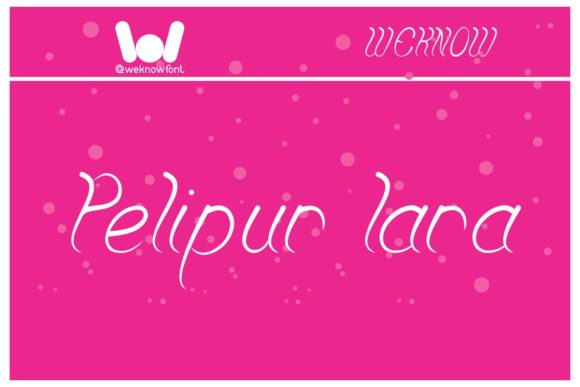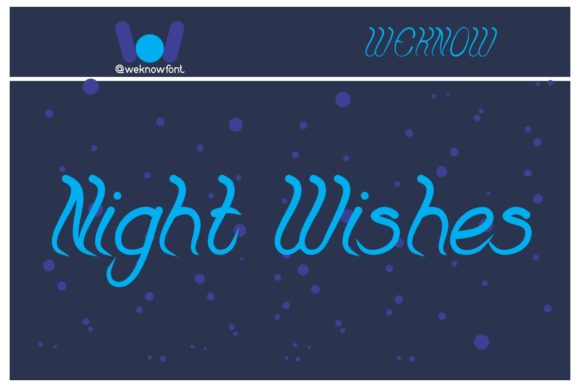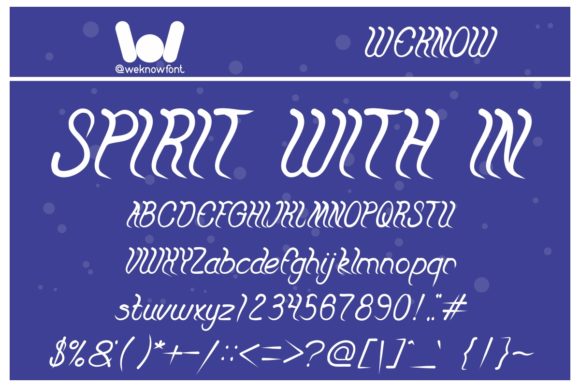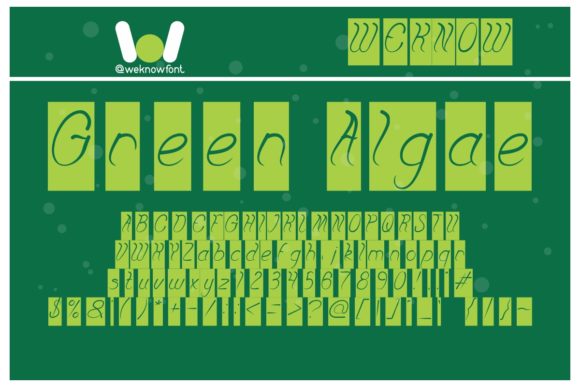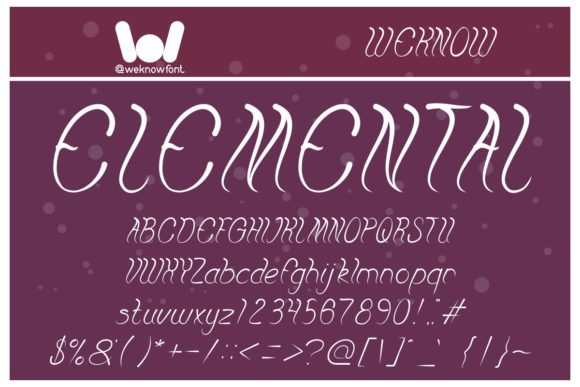
Introducing Elemental Font: The Ultimate Display Font for Designers and Crafters
Are you tired of using the same old fonts in your designs? Look no further! Elemental Font is a fancy display font that is carefully handcrafted to become a true favorite among designers and crafters. Its casual charm makes it appear wonderfully down-to-earth, readable, and incredibly versatile. In this article, we’ll dive into the features and benefits of Elemental Font, and explore how it can elevate your designs to the next level.
The Story Behind Elemental Font
Elemental Font is designed with the goal of creating a unique and eye-catching display font that can be used in a variety of contexts. The font’s creator has poured their heart and soul into crafting a font that is both stylish and functional. The result is a font that is perfect for designers and crafters who want to add a touch of personality to their work.
Key Features of Elemental Font
So, what makes Elemental Font so special? Here are some of its key features:
- Handcrafted with love: Elemental Font is carefully crafted by hand to ensure that every letter and curve is perfect.
- Casual charm: The font has a friendly and approachable feel that’s perfect for designs that need a personal touch.
- Readability: Despite its decorative nature, Elemental Font is highly readable, even at smaller sizes.
- Versatility: The font can be used in a wide range of contexts, from busy backgrounds to standalone headlines.
Using Elemental Font in Your Designs
So, how can you use Elemental Font in your designs? The possibilities are endless! Here are a few ideas to get you started:
- Headlines and titles: Use Elemental Font to create eye-catching headlines and titles that grab attention.
- Signage and branding: The font’s casual charm makes it perfect for signage and branding projects that need a friendly and approachable feel.
- Social media graphics: Elemental Font is perfect for social media graphics, where you need to stand out from the crowd.
- Packaging and labels: The font’s readability and versatility make it a great choice for packaging and labels.
Tips for Getting the Most Out of Elemental Font
Here are a few tips for getting the most out of Elemental Font:
- Experiment with colors: Elemental Font looks great in a wide range of colors, so don’t be afraid to experiment and find the perfect hue for your design.
- Play with sizes: The font’s readability means it can be used at a wide range of sizes, from small captions to large headlines.
- Mix and match: Try pairing Elemental Font with other fonts to create a unique and eye-catching combination.
In conclusion, Elemental Font is a versatile and stylish display font that’s perfect for designers and crafters who want to add a touch of personality to their work. Its casual charm, readability, and versatility make it a great choice for a wide range of projects, from headlines and titles to signage and branding. With its handcrafted design and attention to detail, Elemental Font is sure to become a true favorite in your font collection.